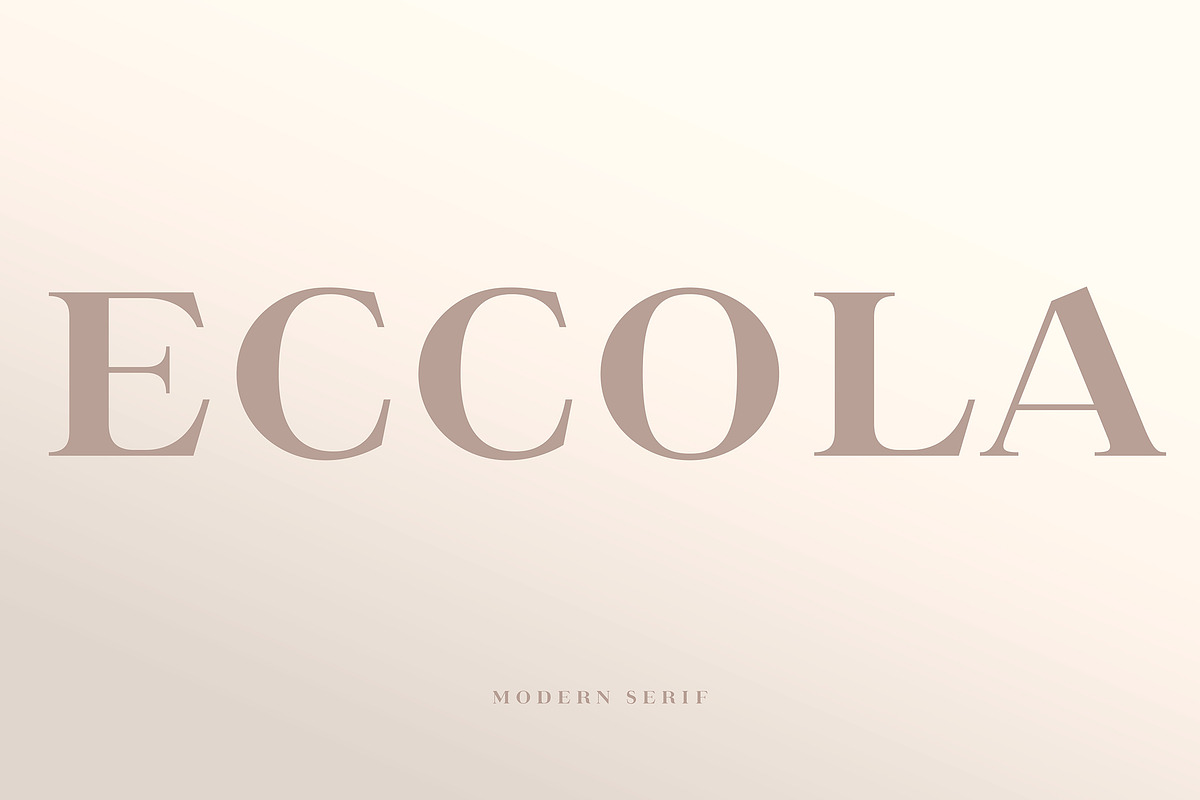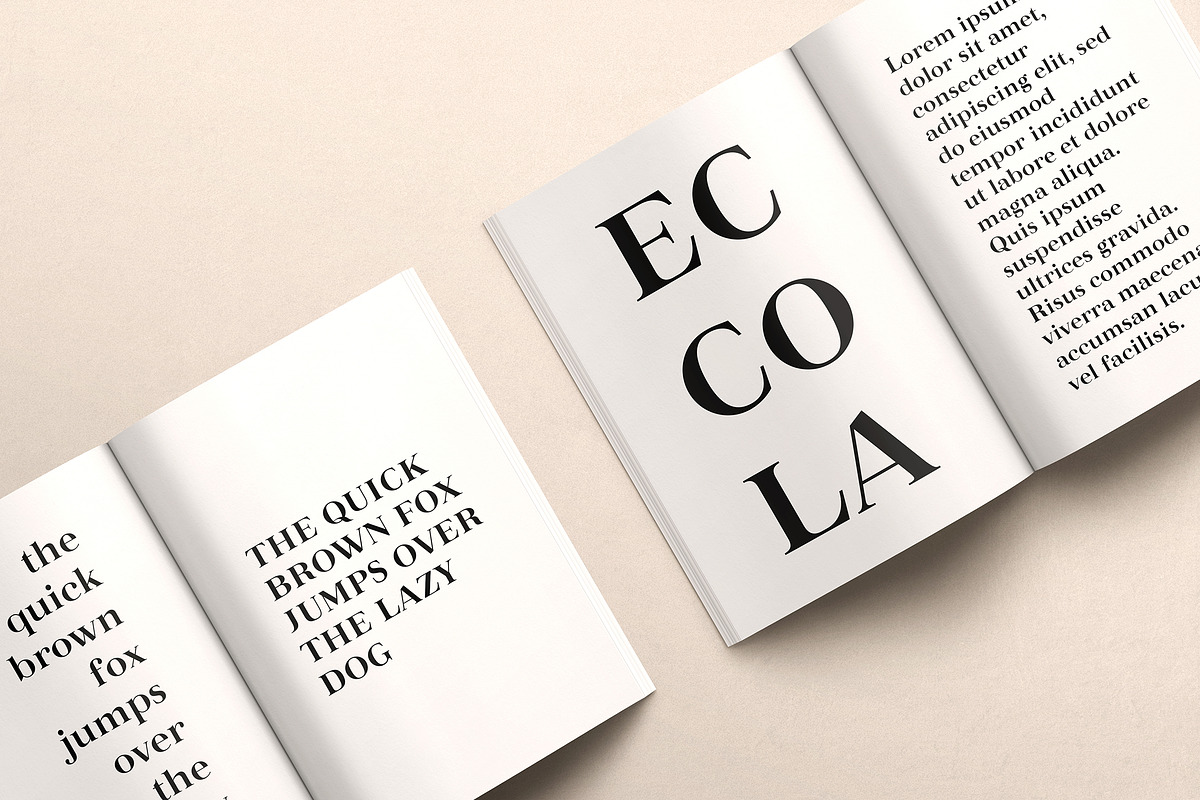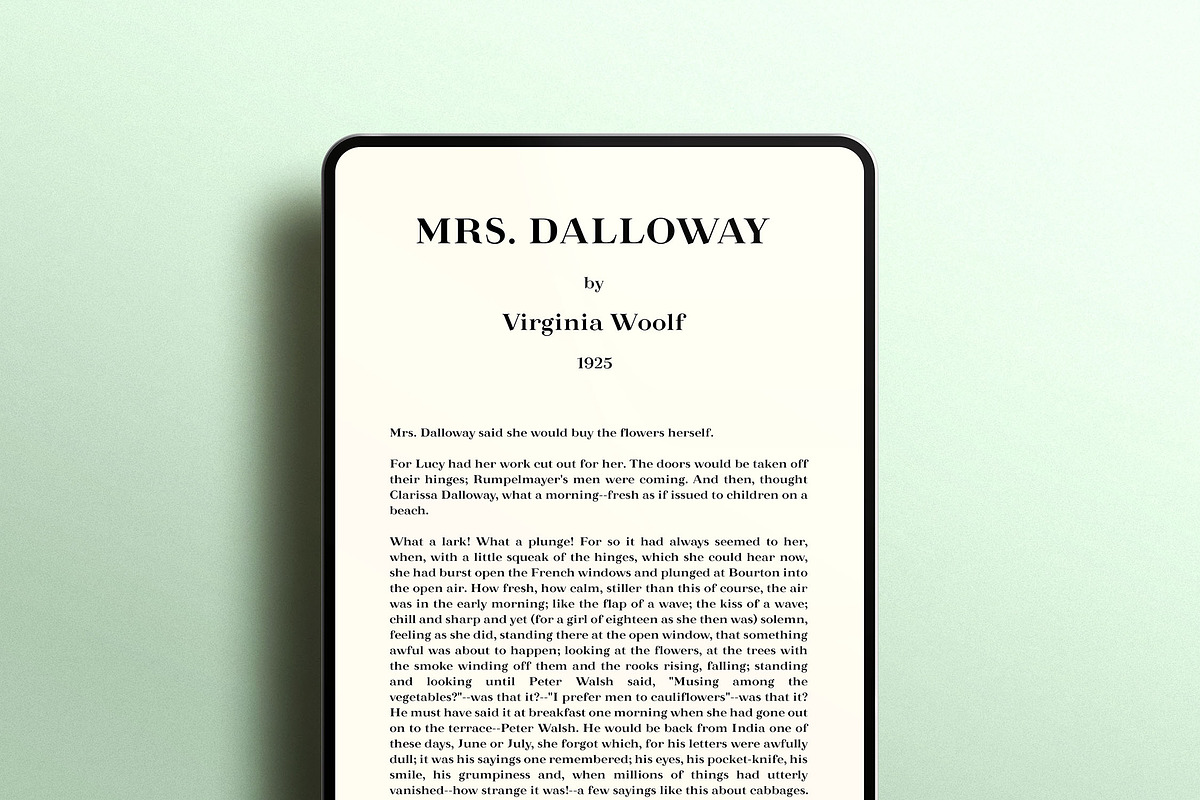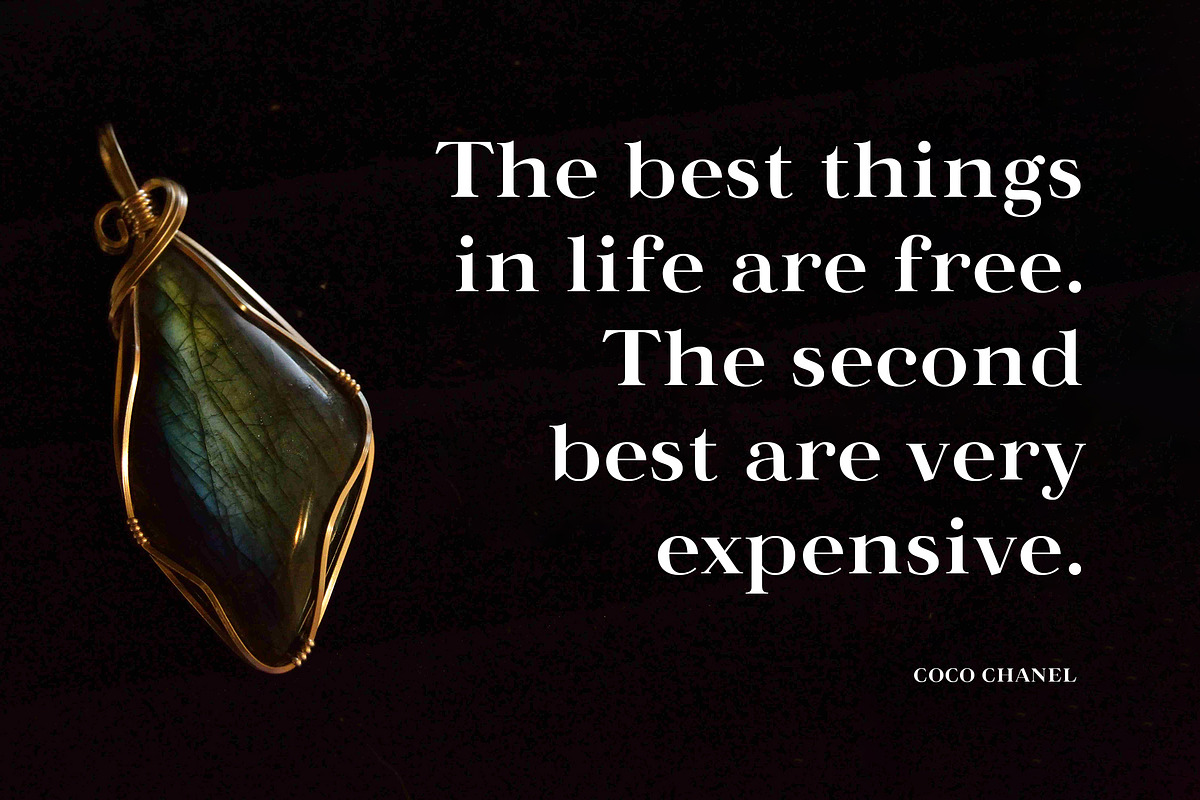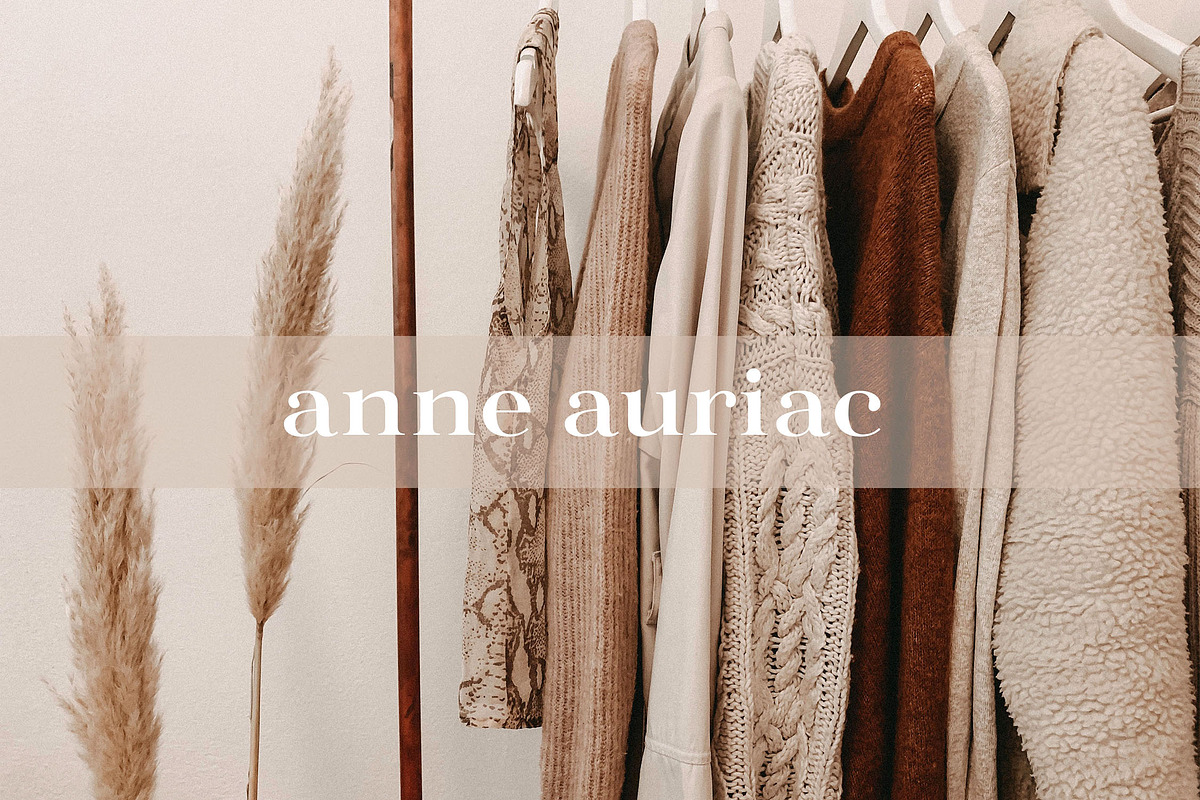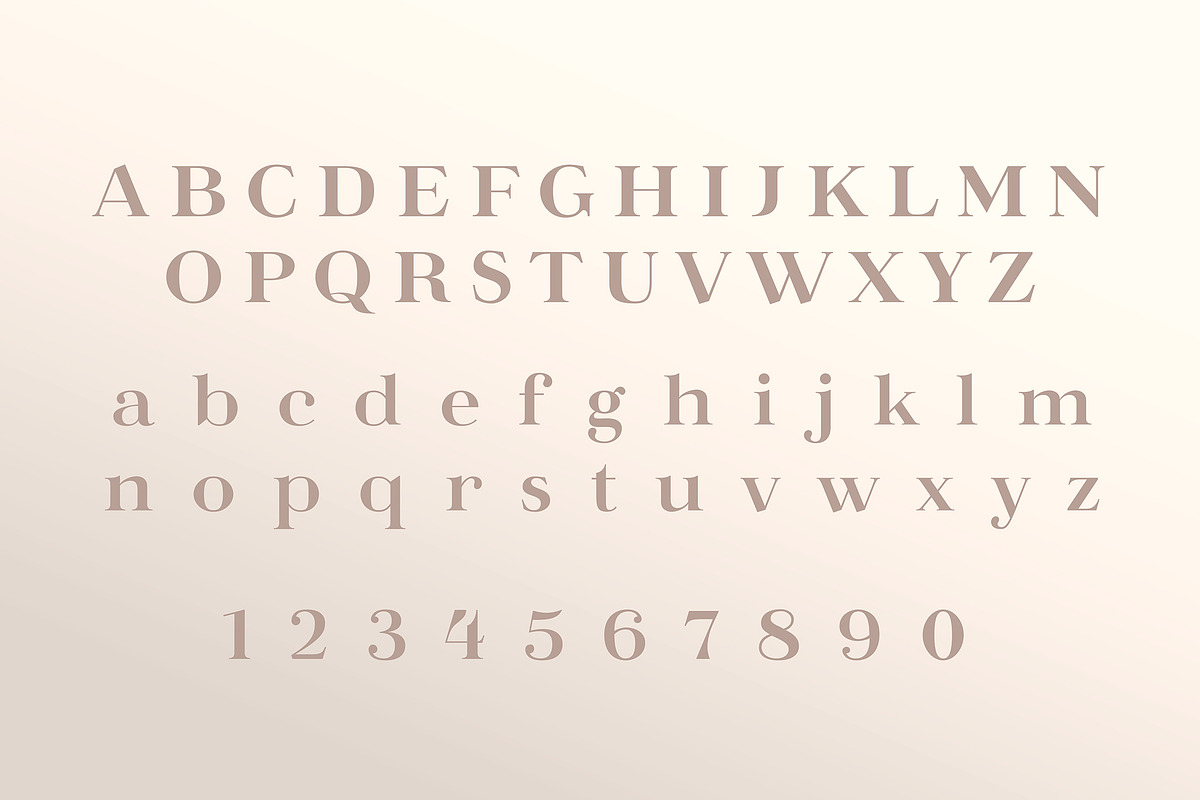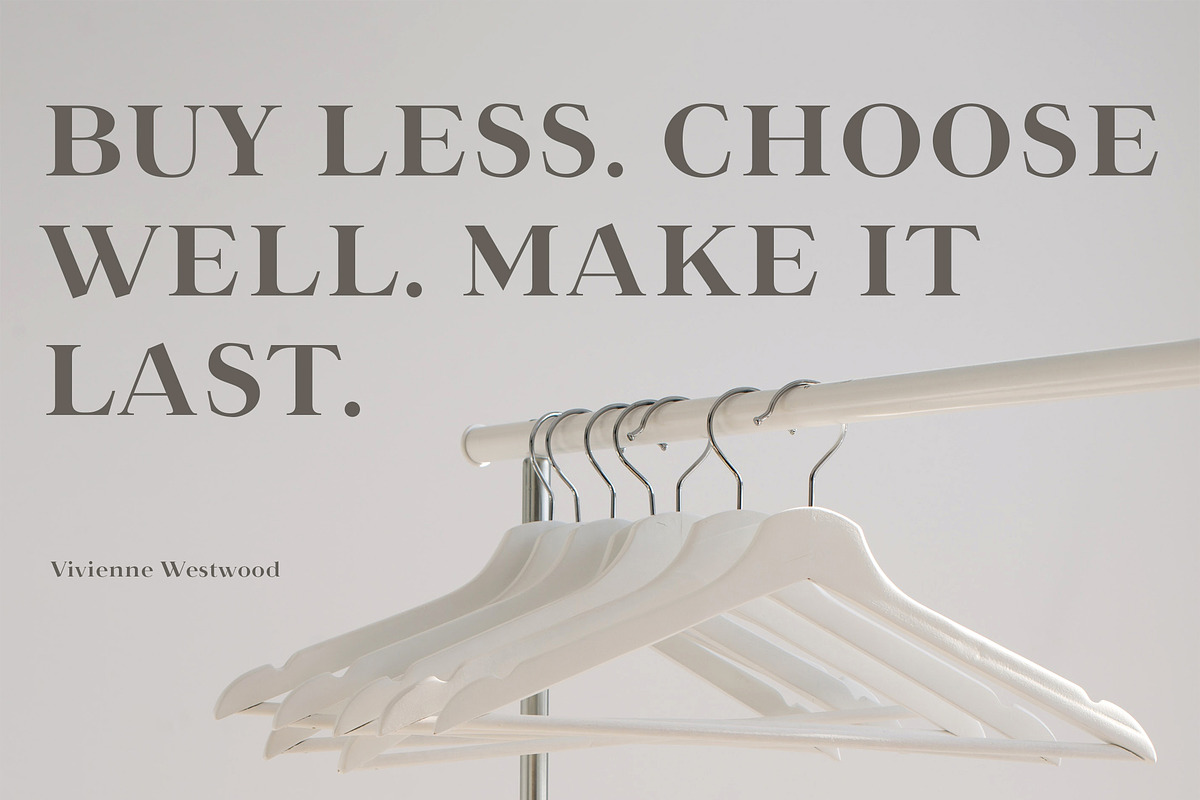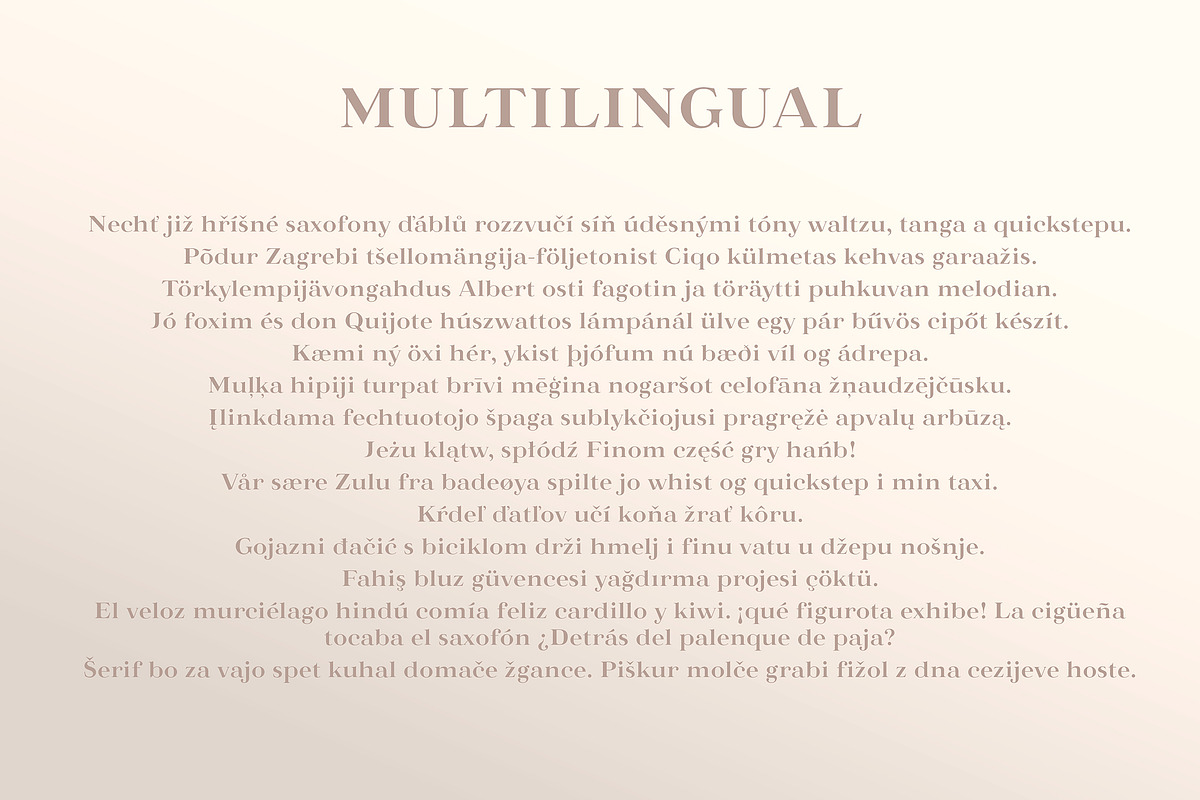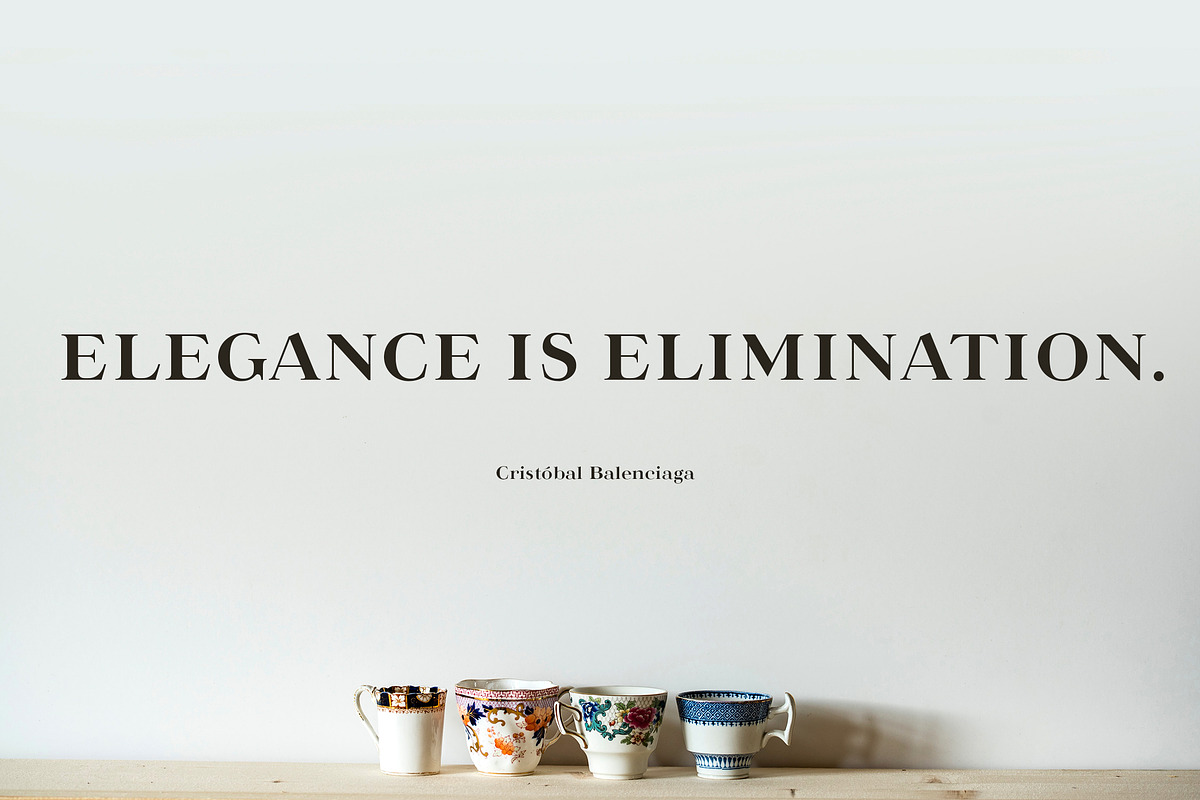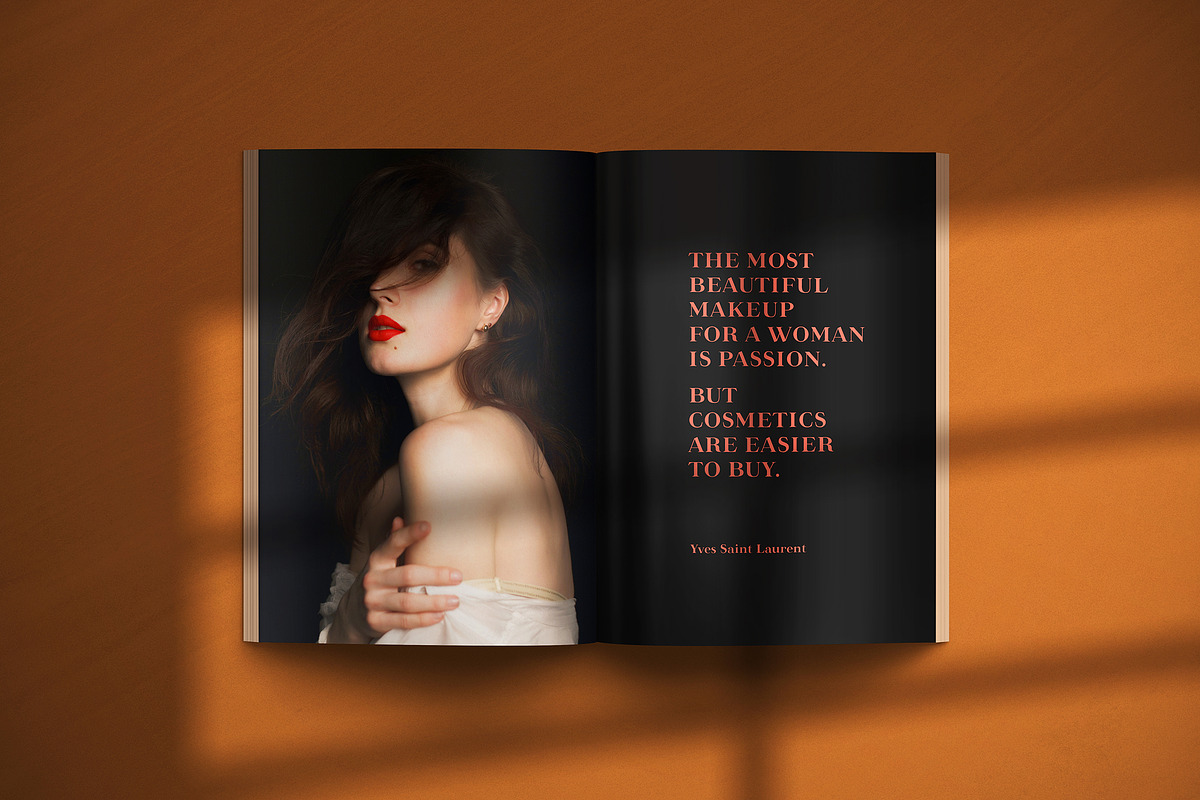
Eccola - Didone Font
Eccola is a modern serif font inspired by typefaces of Didone aesthetics.
- full set of uppercase and lowercase characters;
- multilingual support;
- numbers;
- standard punctuation and special characters.